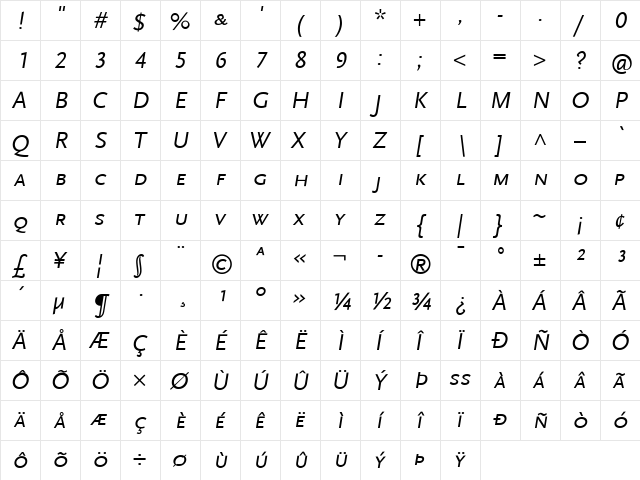
Scala Sans Regular Italic Font Preview
Scala Sans Regular Italic
Design Context for Scala Sans Typeface
Scala Sans is a composed and adaptable typeface that performs quietly and consistently across a wide range of design contexts. The dynamic lean of this cut emphasises speed and emphasis in any layout.
Pro Tip: Try Scala Sans for annotation and caption copy alongside an upright companion — the contrast in angle creates a dynamic but ordered typographic system.